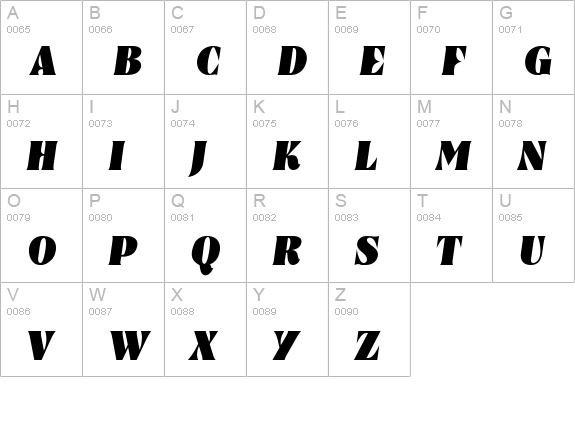
Glenys Display SSi Italic is a distinctive, italic variant in the Glenys typeface family \xE2\x80\x94 well suited to design and typography projects.
Glenys Display SSi Italic font is a stunning typeface that exudes elegance and sophistication. Its sleek, slanted design adds a touch of modernity to any project, making it perfect for headlines, logos, and branding materials. The italicized style of Glenys Display SSi enhances the overall visual appeal, creating a sense of fluidity and movement. The best part? Glenys Display SSi Italic font is available for free download at FontsMarket.com. This means you can easily access this beautiful typeface and incorporate it into your designs without any cost. Whether you're a seasoned designer or just starting out, Glenys Display SSi Italic font is a valuable addition to your font collection. Don't miss out on this opportunity to enhance your projects with this stylish and versatile typeface.